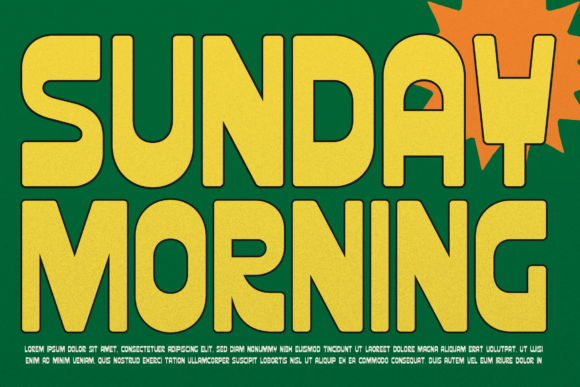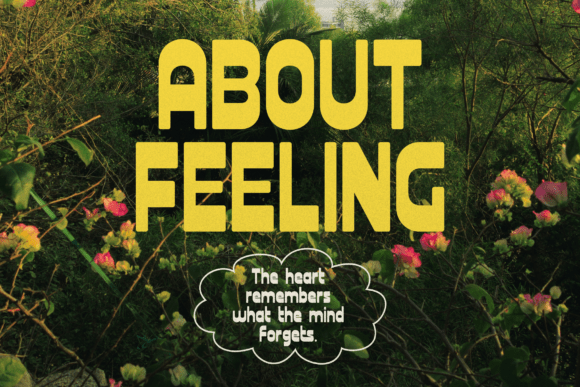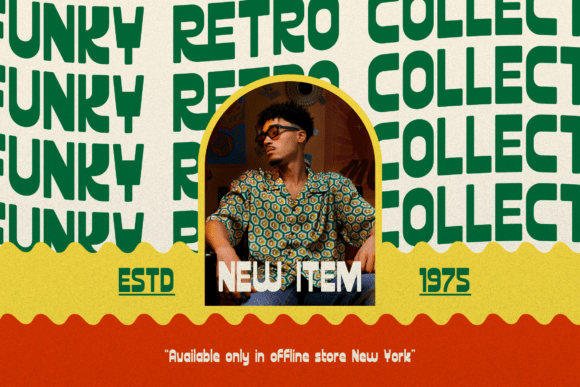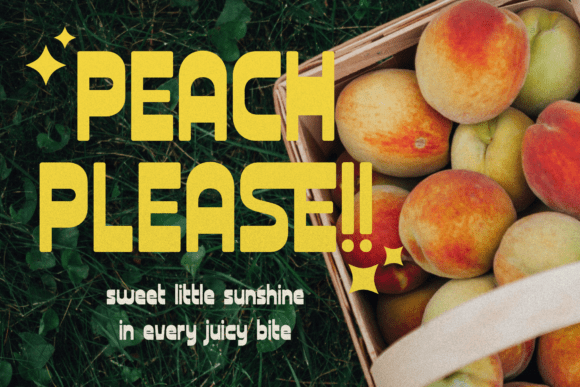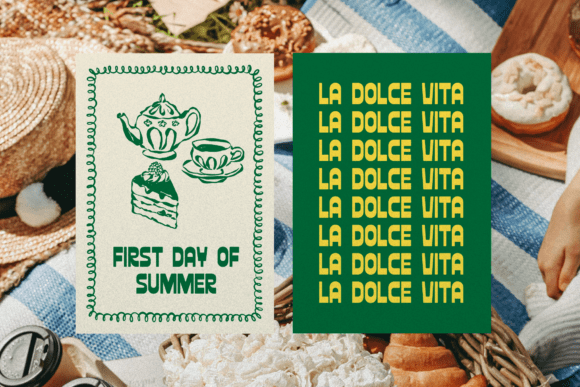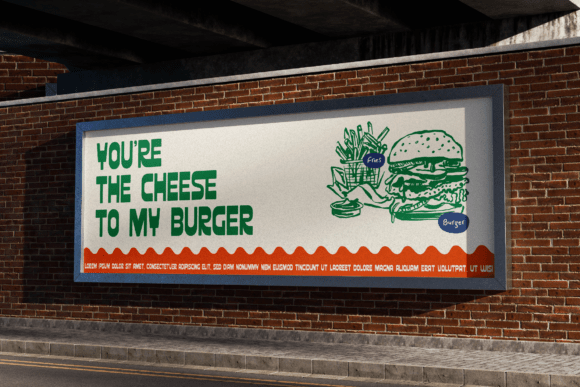
Getting Inspired with the Mereum Dreamy Font
Do you remember that moment when you stumbled upon a vintage record store, and the colorful album covers transported you to a different era? For designers, it’s not just about nostalgia, but about finding the perfect design resource to bring their creative project to life. One such gem is the Mereum Dreamy Font, a bold retro typeface that exudes personality and vintage flair.
This eye-catching font features thick, chunky letterforms with unique, liquid-like extensions, reminiscent of the psychedelic spirit of the 1960s and 70s. What sets it apart is its clean, modern edge, making it a high-quality design resource for a wide range of creative projects. Whether you’re designing a bold t-shirt, a free download tote bag, or a patch graphic, the Mereum Dreamy Font is sure to add a touch of “dreamy” yet powerful aesthetic to your work.
Key Features of Mereum Dreamy Font
- Unique, dreamy aesthetic perfect for creative projects, including art, design, and advertising.
- Designed to evoke a sense of whimsy and wonder, making it ideal for children’s books, greeting cards, and other playful projects.
Honest Review: Mereum Dreamy Font
As a designer, I’m always on the lookout for high-quality design resources to elevate my creative projects. The Mereum Dreamy Font is one such find that has caught my attention. I downloaded it for free, and I must say, it’s been a game-changer for my latest design endeavors.
- ✨ Unique and whimsical style that adds a touch of magic to any design project
- ✨ High-quality vectors that print beautifully, even with a transparent background
- ✨ Extremely versatile, suitable for a wide range of creative projects, from branding to editorial design
- ⚠️ Limited character set, which may not be ideal for long-form texts or complex typography
- ⚠️ Some users may find the font a bit too playful or unconventional for more traditional designs
Overall, I’m thoroughly impressed with the Mereum Dreamy Font. Its unique style and high-quality vectors make it a valuable addition to any designer’s toolkit. While it may not be perfect for every project, it’s certainly a design resource worth exploring.
The Mereum Dreamy Font is a high-quality design resource ideal for creative projects that require a touch of elegance and sophistication. With its transparent background, it’s perfect for overlaying on images or using as a standalone text element.
To get the most out of the Mereum Dreamy Font, use it in combination with high-quality images or graphics to create a visually appealing design. Experiment with different font sizes, colors, and styles to achieve the desired look. You can also use the font in conjunction with other design elements, such as icons or shapes, to create a cohesive and engaging design.
The Mereum Dreamy Font is ideal for a variety of creative projects, including:
- Birth announcements and baby shower invitations
- Photography and fine art projects